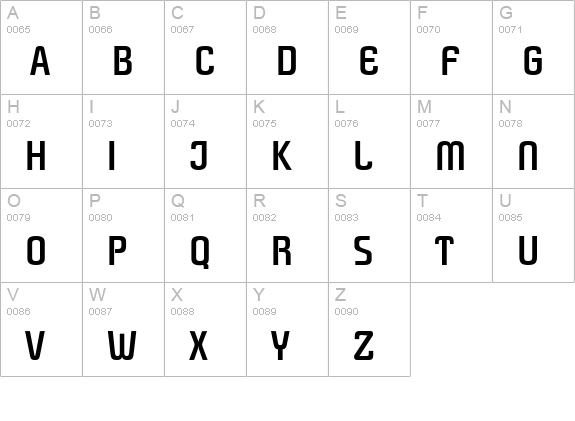
Plover Bold is a strong, high-contrast variant in the Plover typeface family \xE2\x80\x94 well suited to headlines, attention-grabbing titles, and strong calls-to-action.
Plover Bold is a striking and versatile typeface that commands attention with its bold and impactful presence. This modern sans-serif font features clean lines and sharp edges, making it perfect for a wide range of design projects, from branding to editorial layouts. Its strong and confident appearance exudes a sense of power and authority, while remaining highly readable and engaging. The Plover Bold font is available for free download exclusively at FontsMarket.com, where designers and creatives can easily access this exceptional typeface to elevate their projects. Whether you're looking to make a statement with headlines, create eye-catching posters, or craft sleek and professional presentations, Plover Bold is sure to deliver the impact you desire. Don't miss out on the opportunity to enhance your designs with this remarkable font that combines style, clarity, and boldness in one seamless package.